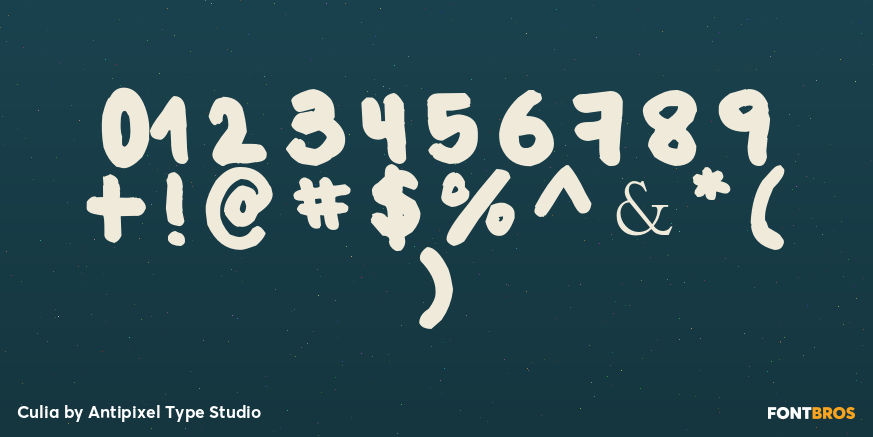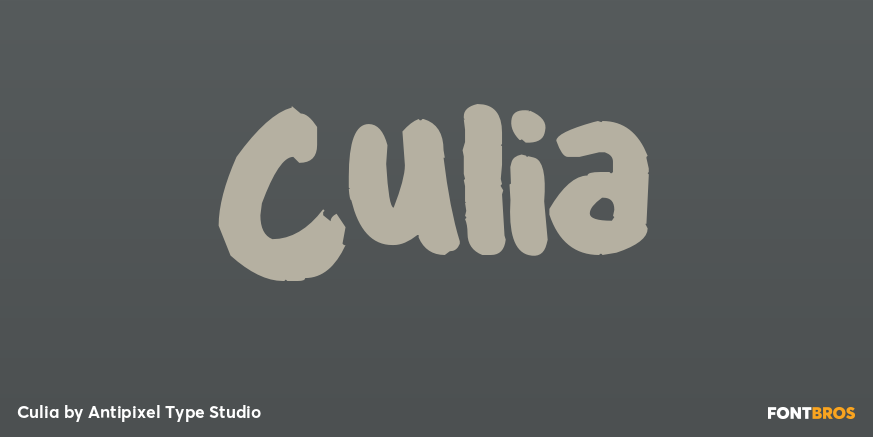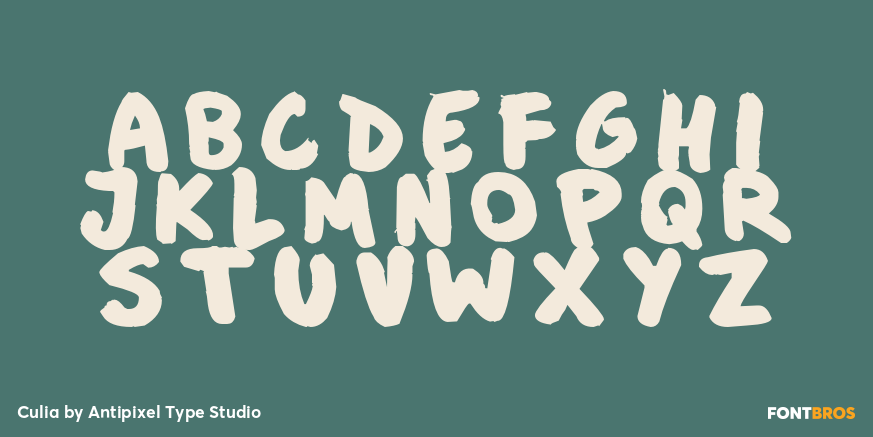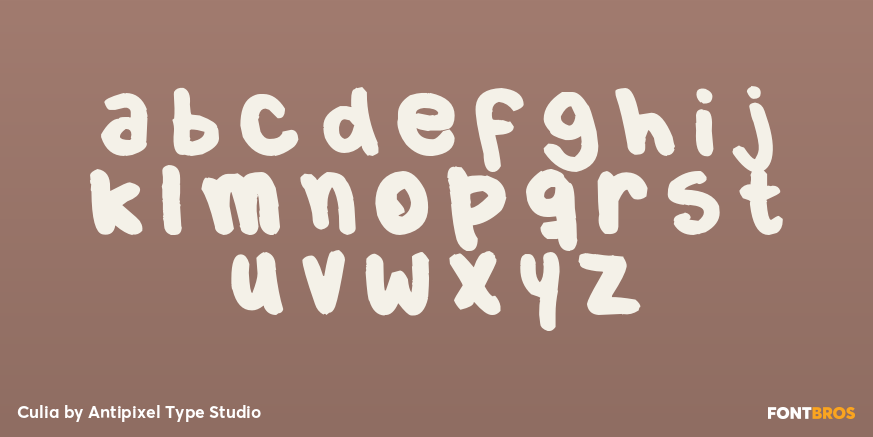
Culia
Font Family by Antipixel Type Studio
Culia is a playful display face with a bold, bubbly look and an easygoing handwritten feel. Its chunky, rounded letterforms and slightly irregular rhythm give it a friendly, organic personality that feels casual, cartoonish, and full of charm.
With its strong presence and approachable tone, this single-style font is well suited to posters, playful branding, packaging, kids-focused design, social graphics, and other decorative display work where you want type to feel warm, lively, and expressive.
Created by Antipixel Type Studio, Culia brings together the softness of rounded sans serif shapes with the spontaneity of hand-drawn lettering, making it a smart choice for projects that call for a cheerful, informal voice.